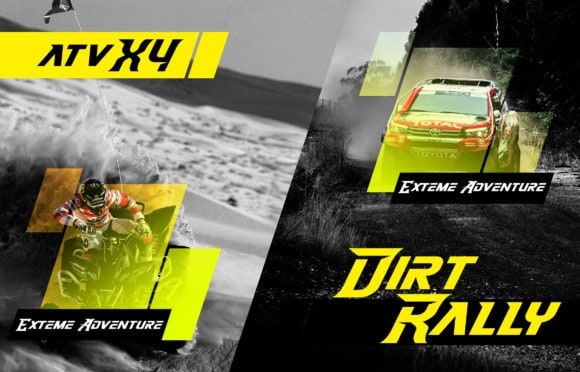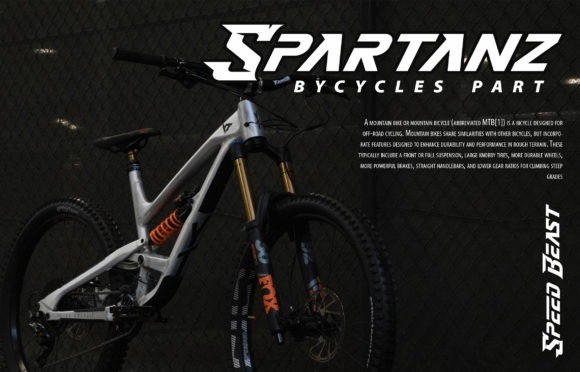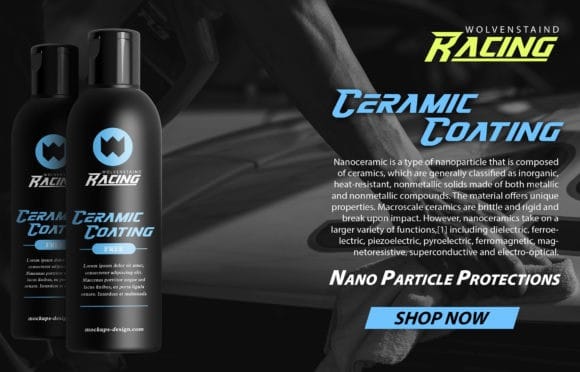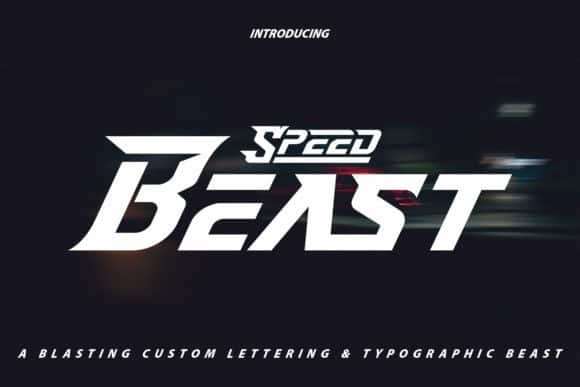
Speed Beast Display Font
Speed Beast Display Font is a futurist display font, designed for headlines. Made from font designer named Vunira. It perfectly captures the essence of speed, and delivers a truly outstanding display font that will look great in any gaming or sports- themed design!. Indurske also works well as a standalone in minimalist logos, wordmarks and taglines.